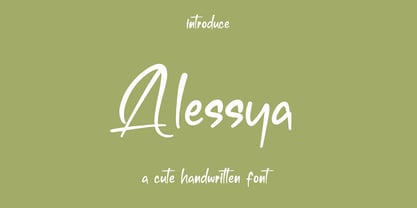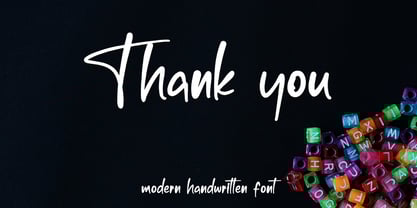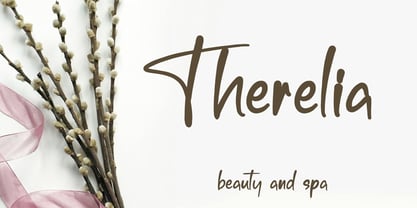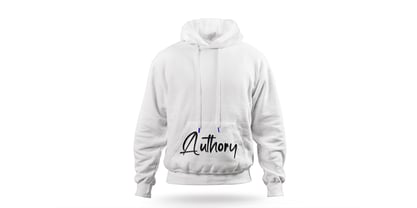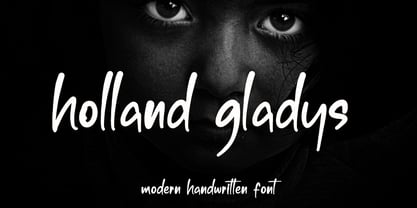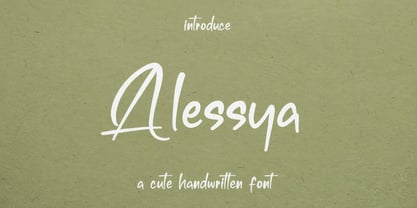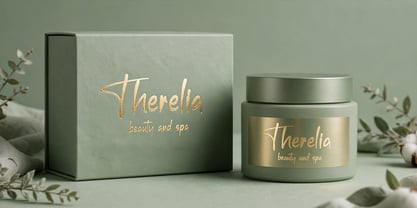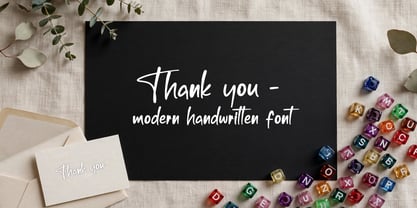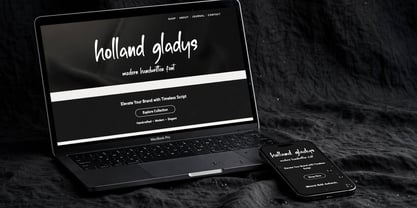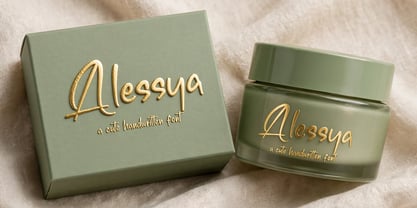
Alessya
by Ayska
The Alessya Font Family was designed by Dhoni Trihatmoko and published by Ayska. Alessya contains 1 styles. More about this family
Alessya is a handwritten font that is suitable for branding, signature, wedding invitation, promotion, product packaging, and other needs. Perfect for greeting cards, wedding stationery, photographer watermarks logos, modern websites, apparel design and more. Alessya font is an elegant handwritten signature with a natural brush handmade